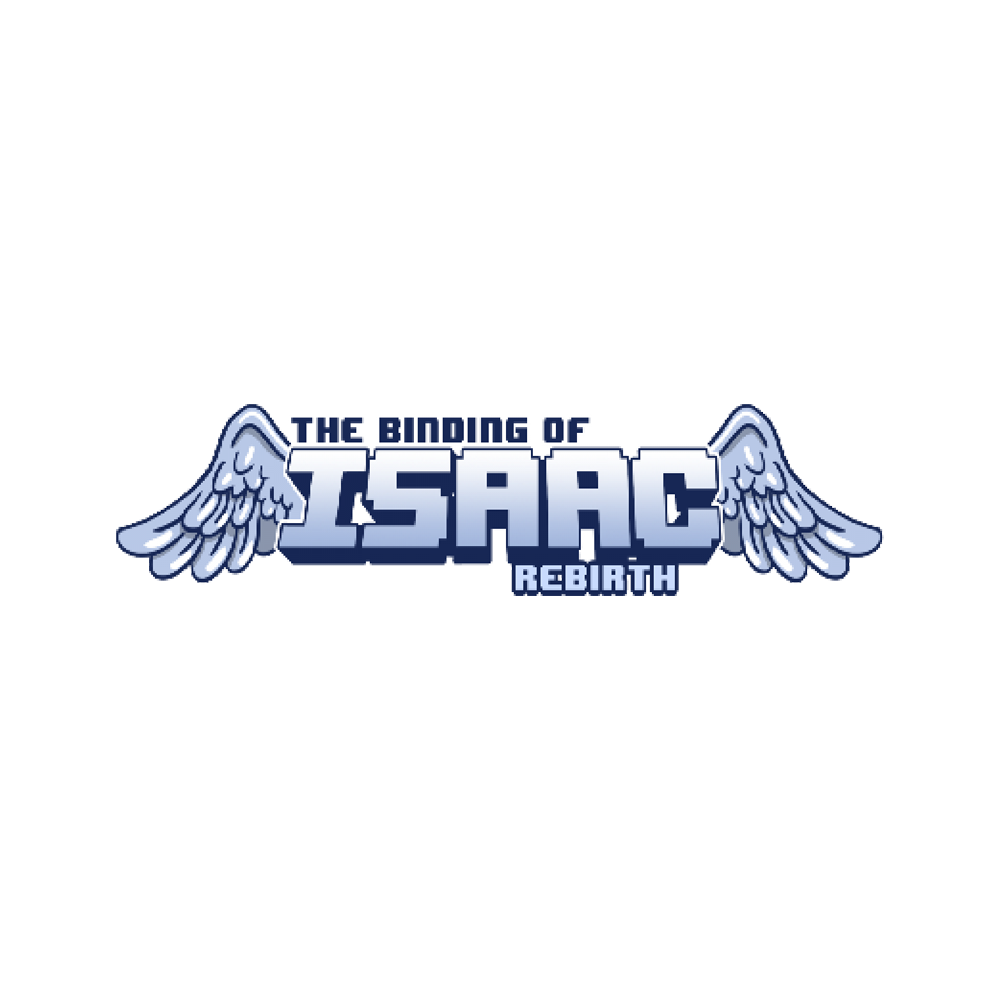
The Binding of Isaac (Video Game) Font
ActionThe Binding of Isaac is a randomly generated action RPG shooter game with heavy roguelike elements. The storyline is inspired by the Biblical story of the Binding of Isaac. In the game, players control Isaac, a young boy who is trying to escape from his mother, who believes she has been commanded by God to sacrifice him.
The logo on the box art of the Binding of Isaac game displays a Pixel font which is very much like Upheaval designed by Ænigma Fonts. The font is free for both personal and commercial use and can be downloaded for free in the Fonts Used Section.